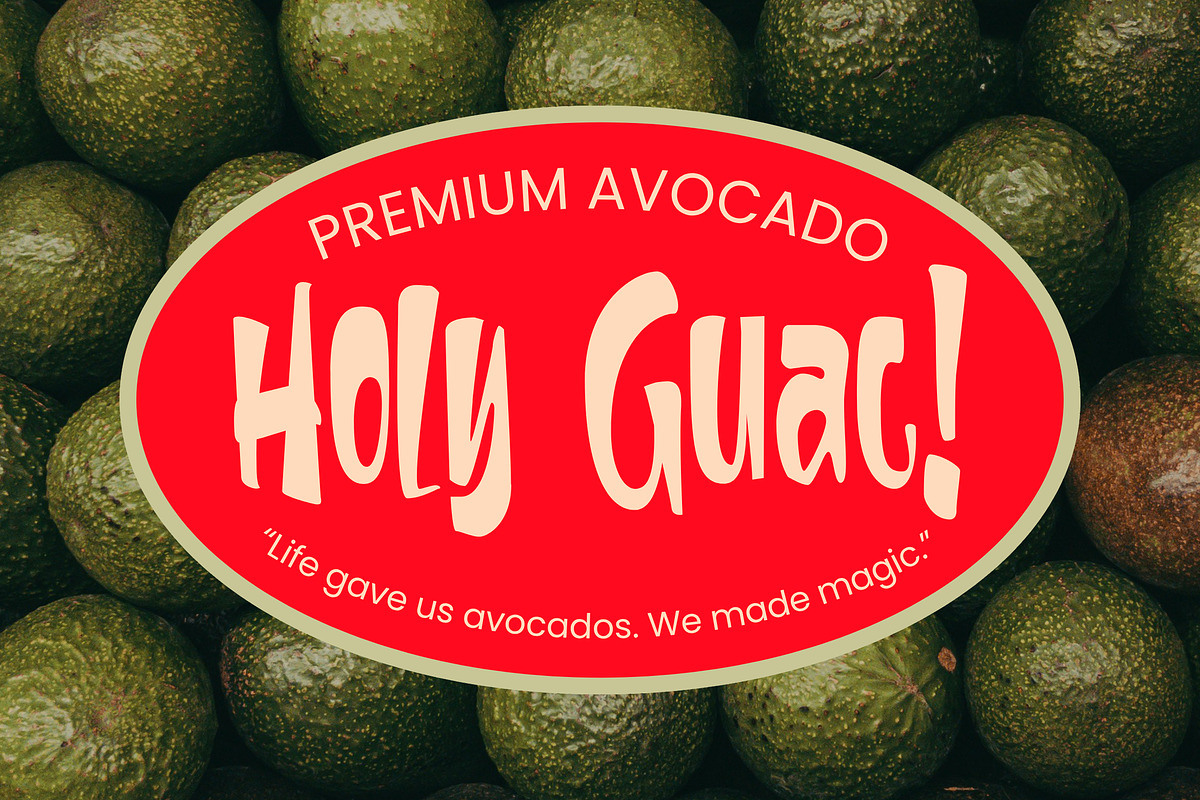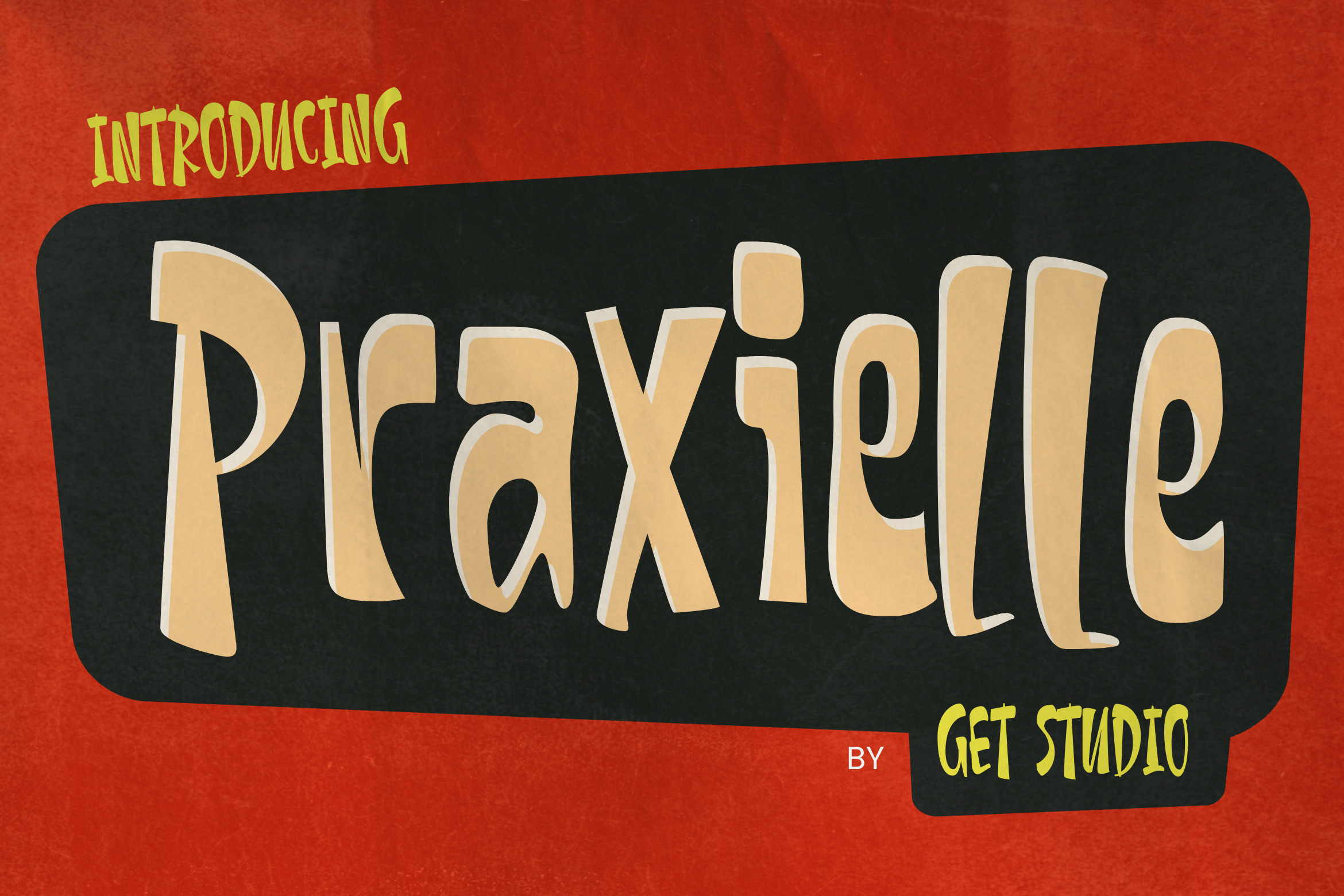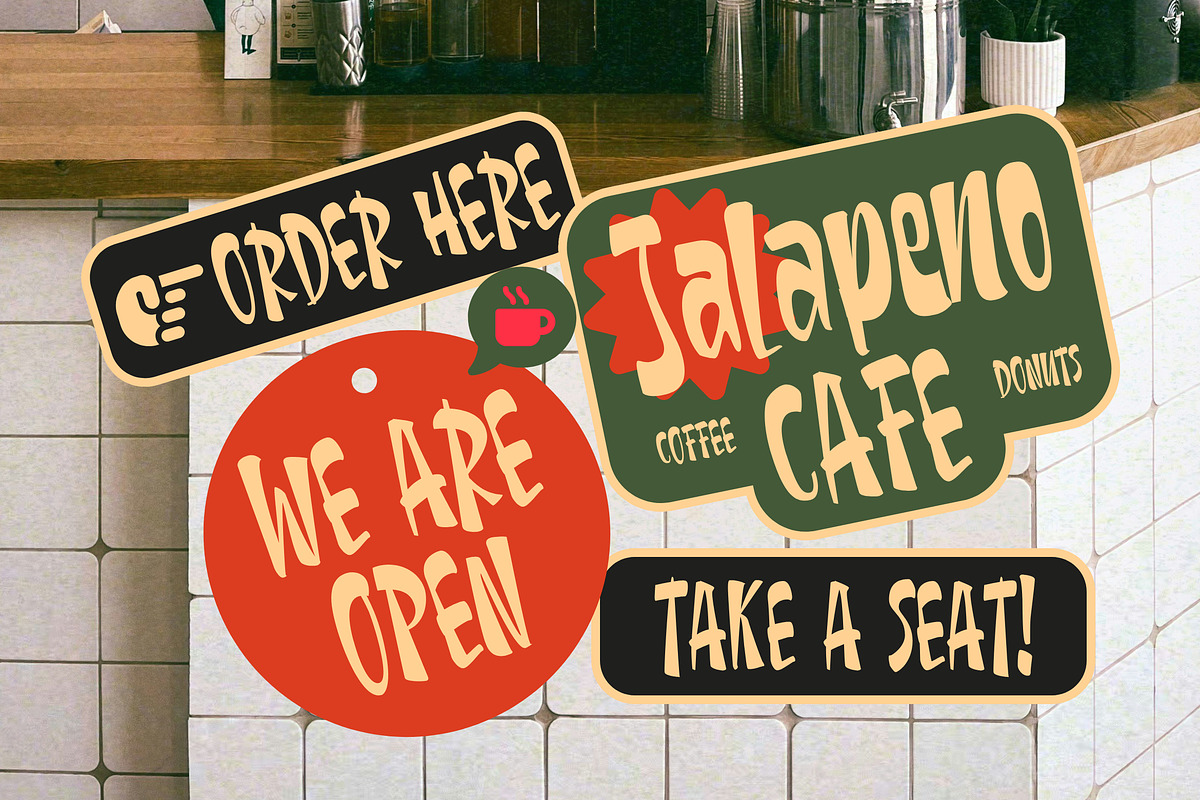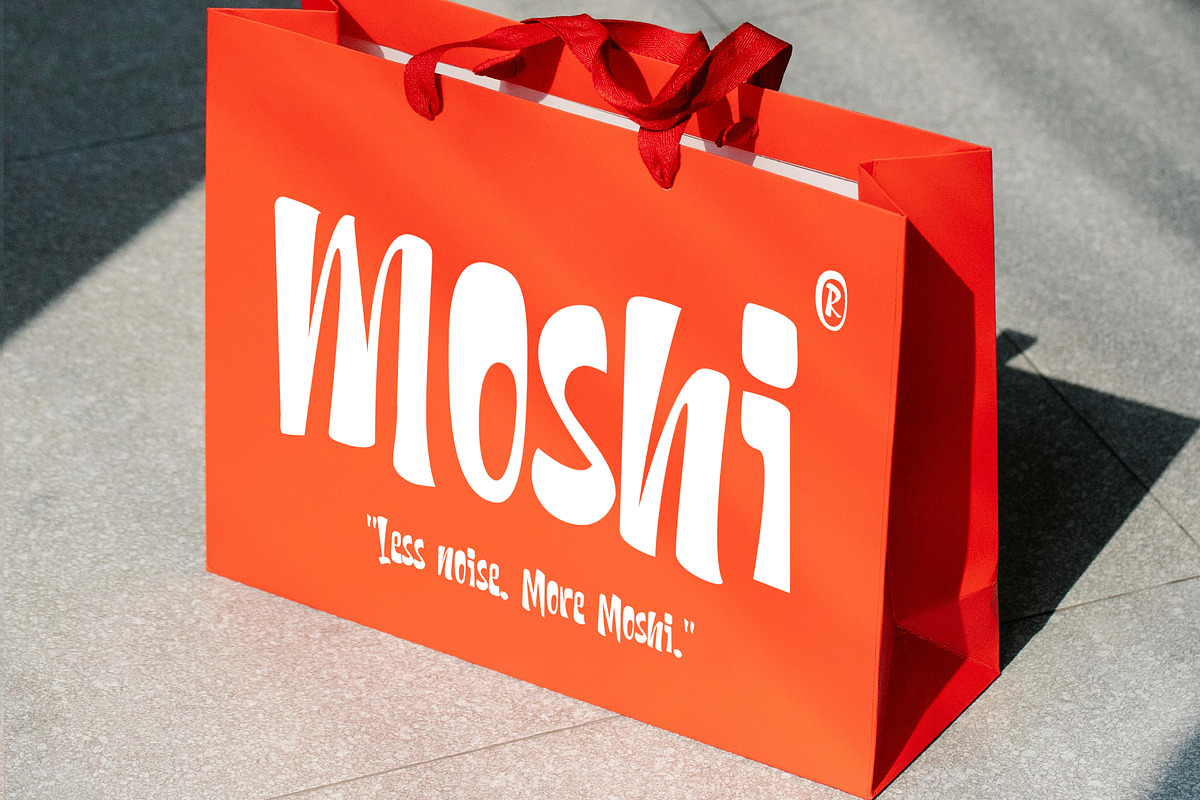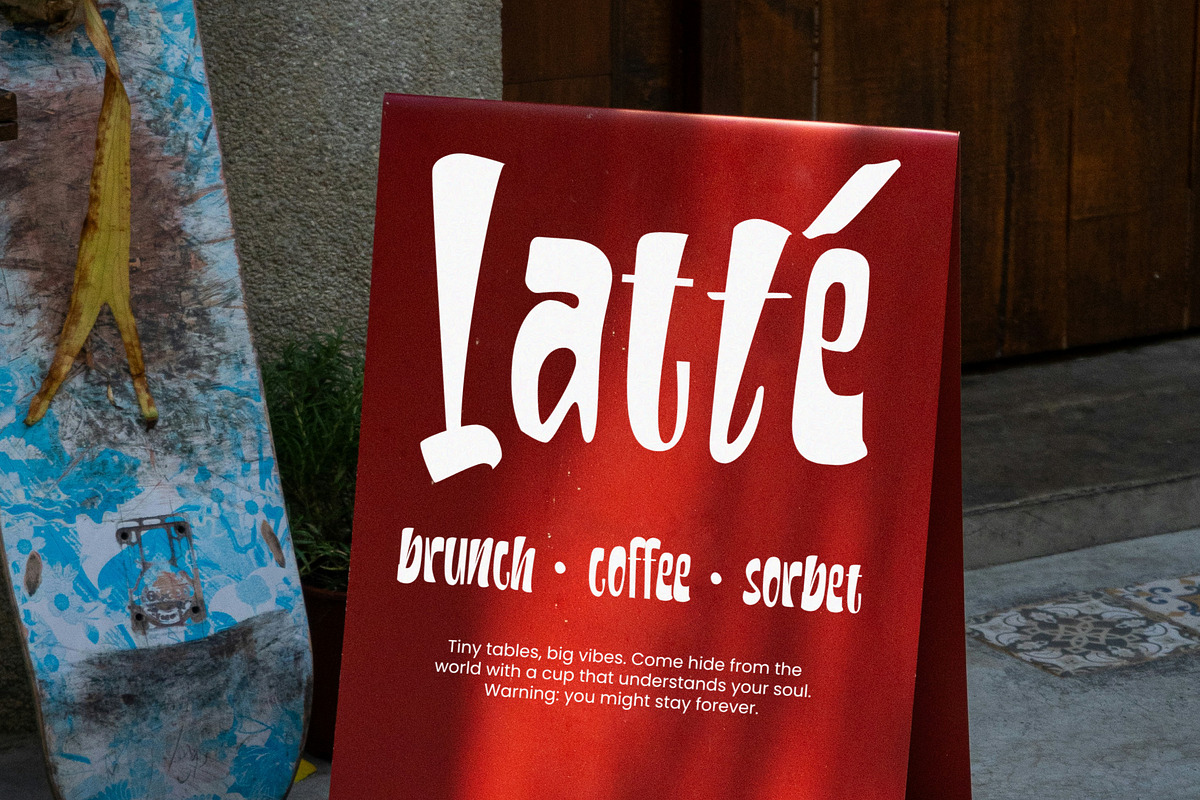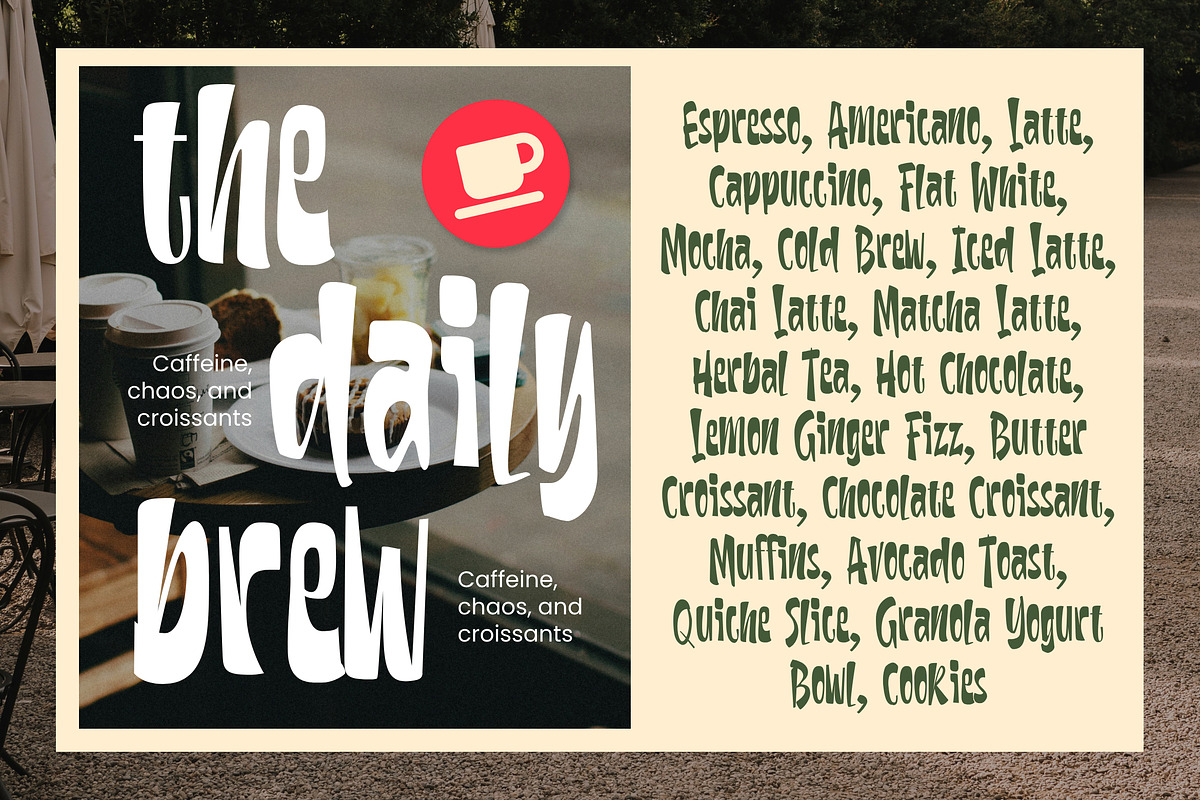
Praxielle Typeface
Introducing Praxielle, a bold and quirky display font that radiates retro charm with a modern twist. Inspired by mid-century aesthetics, Praxielle features playful, stretched letterforms with an organic flow and a slightly offbeat attitude—perfect for grabbing attention in posters, headlines, or branding that dares to be different. The warm tones and hand-crafted vibe give it a nostalgic feel while still staying fresh and unique.
Crafted by Get Studio, Praxielle is designed to bring personality to your creative work. Whether you're working on vintage-themed designs, funky album covers, or fun packaging, this font offers just the right mix of boldness and eccentricity. Let Praxielle add that splash of character your next project needs.